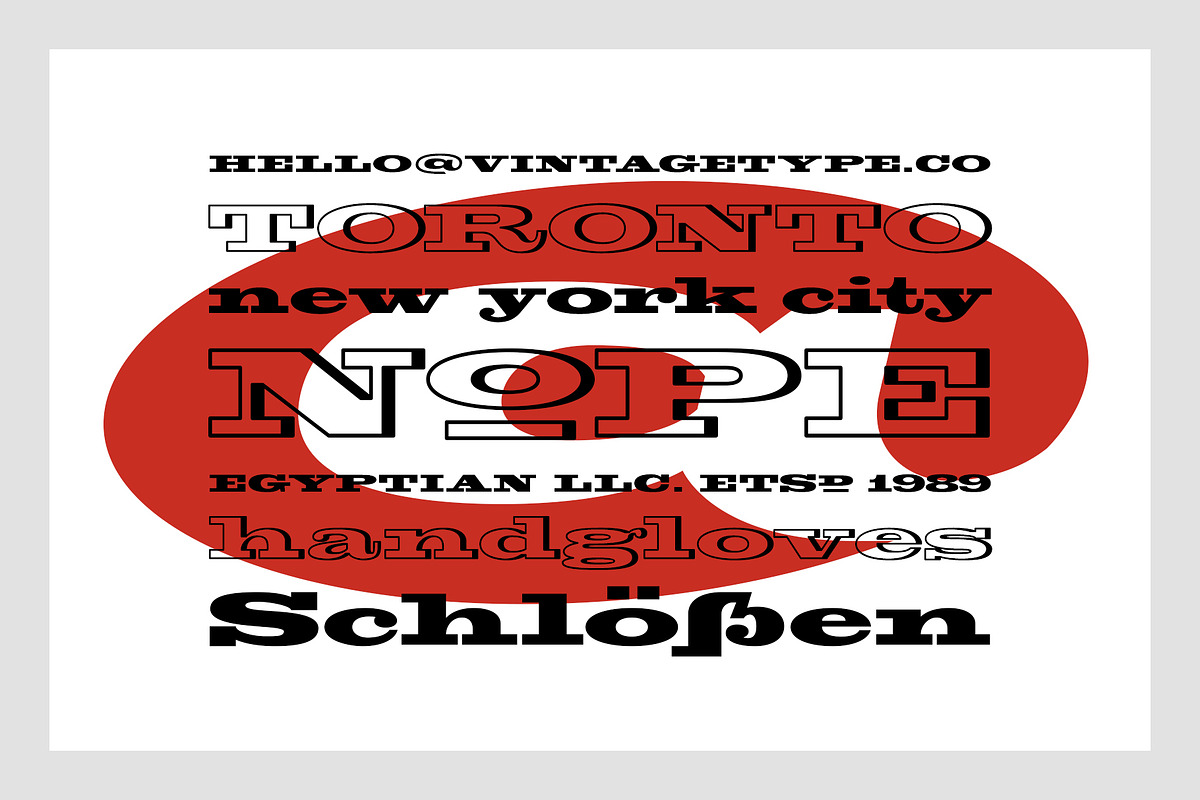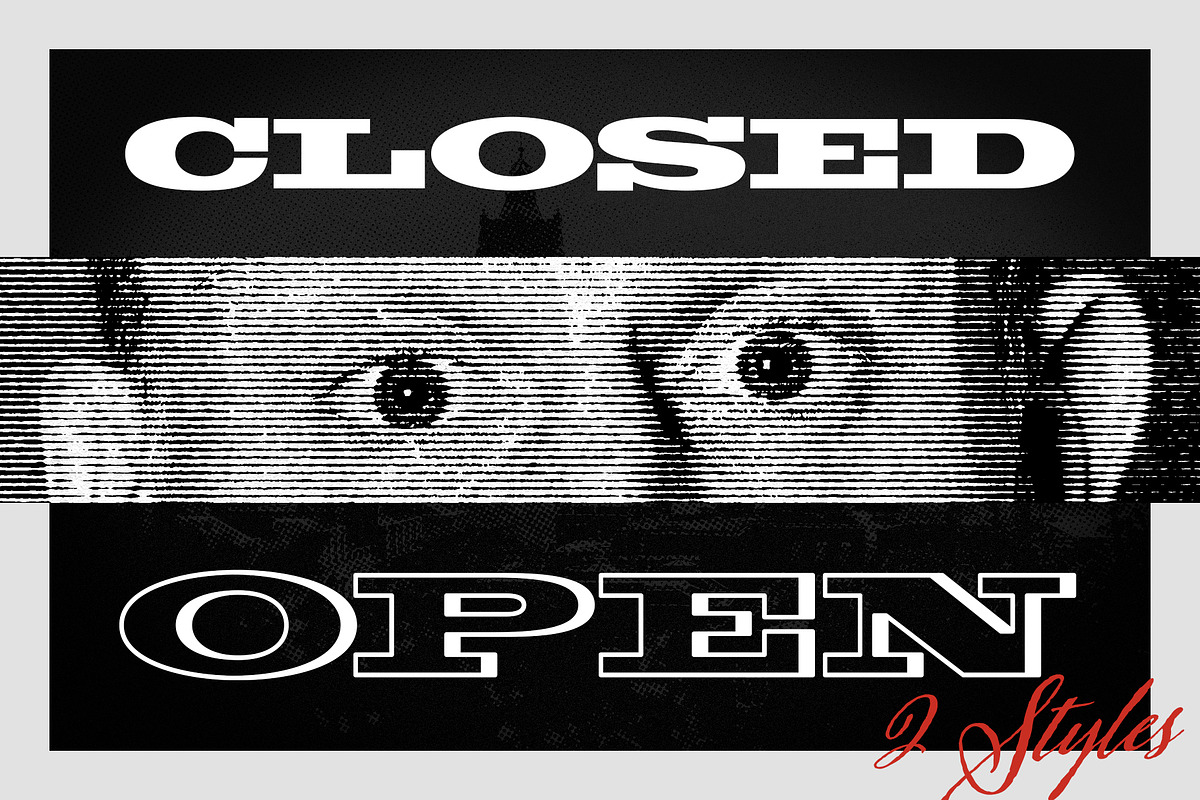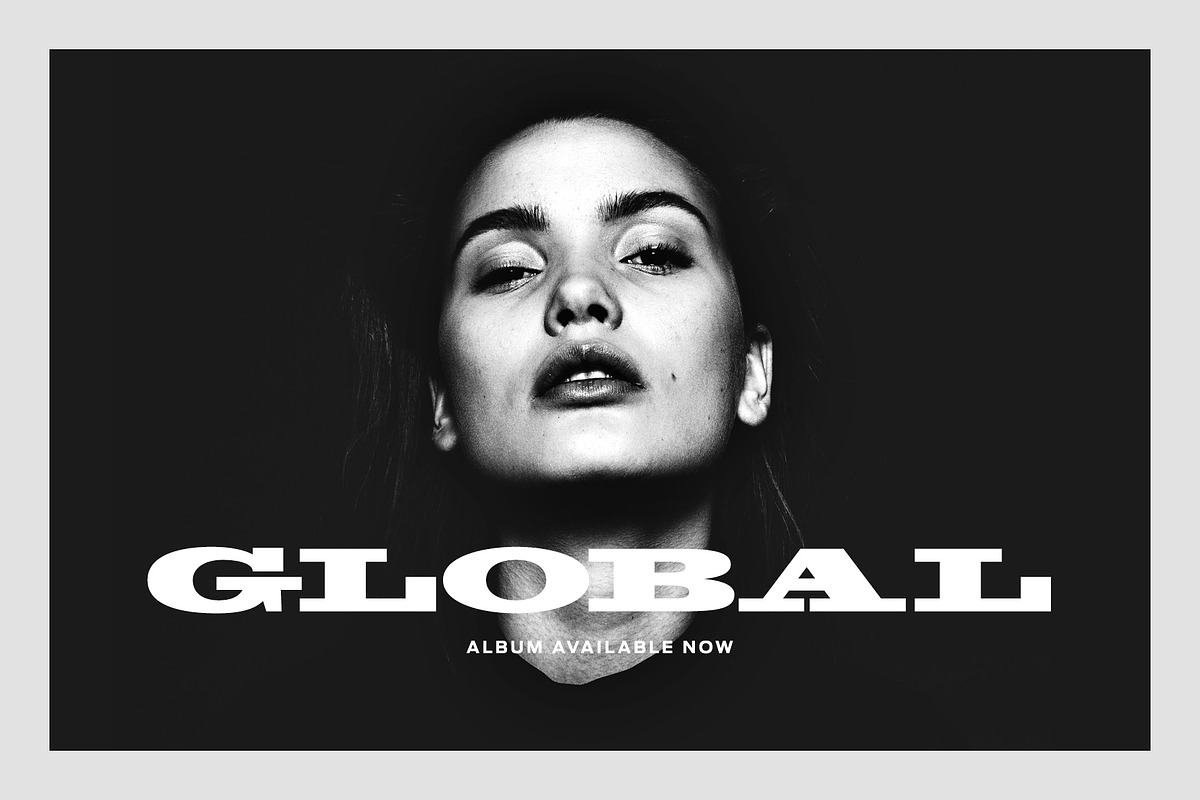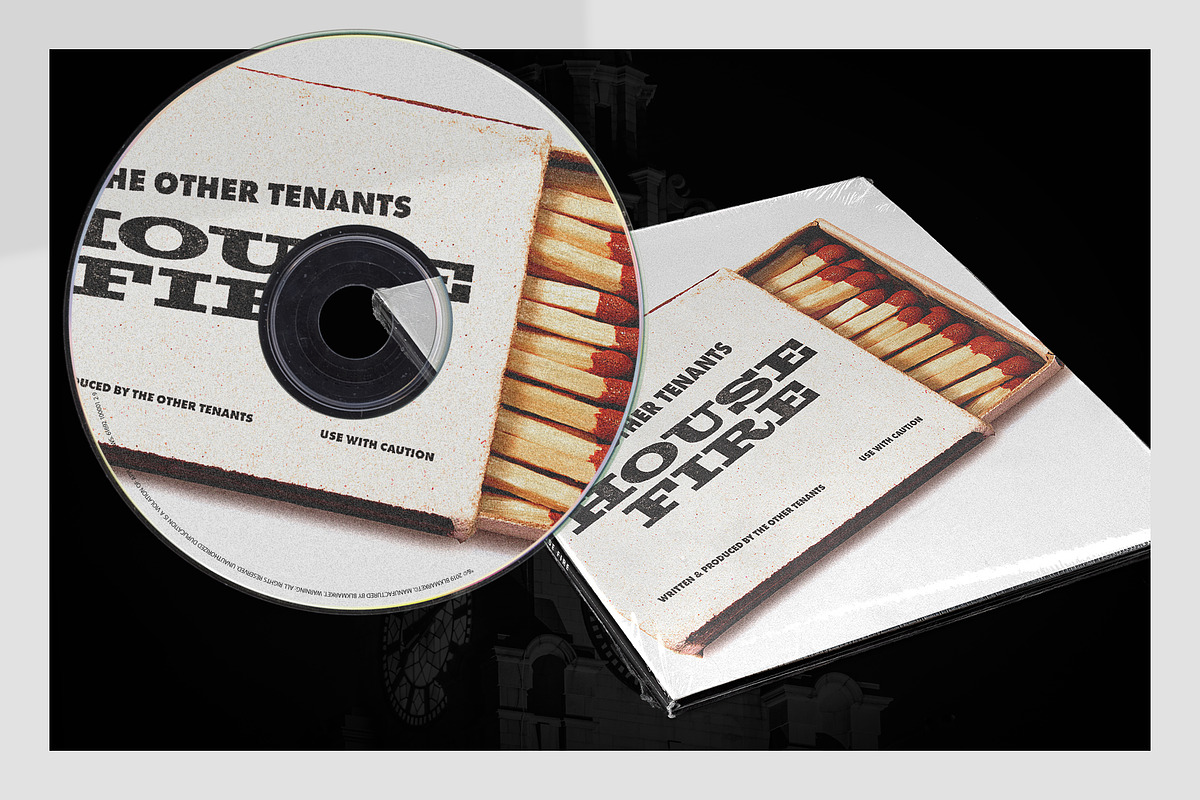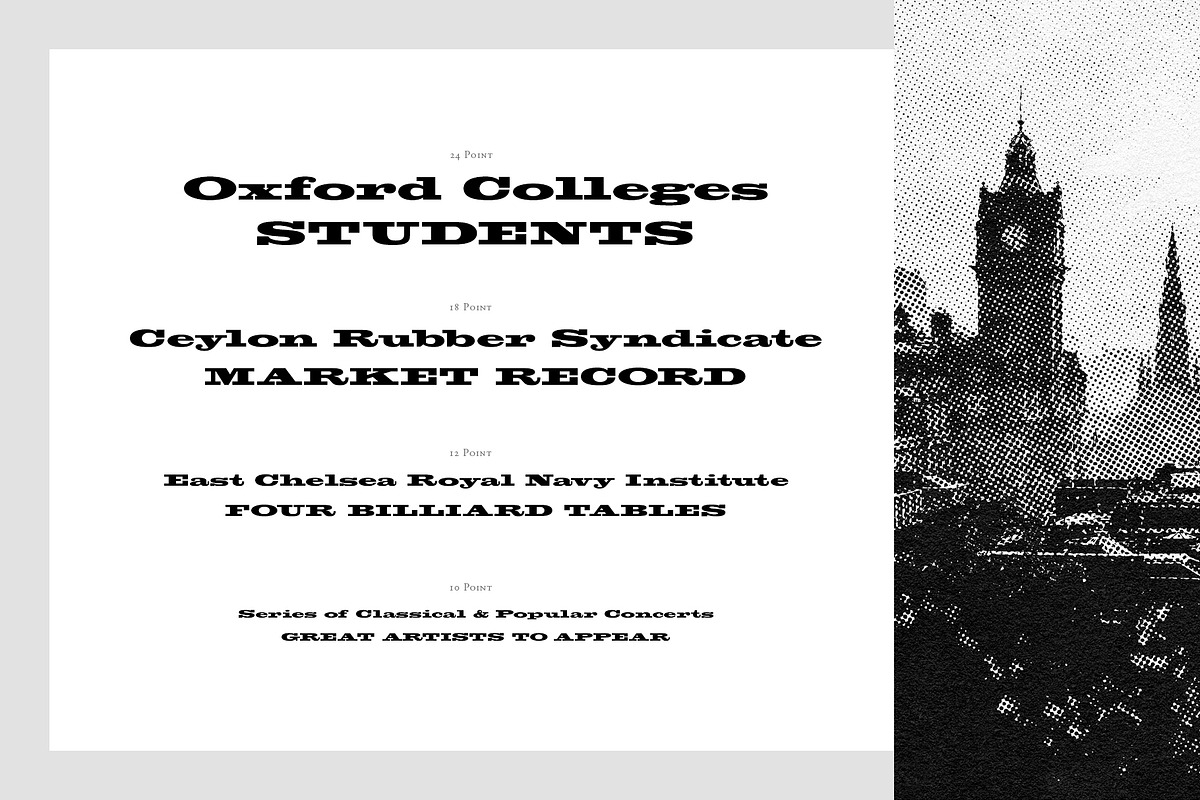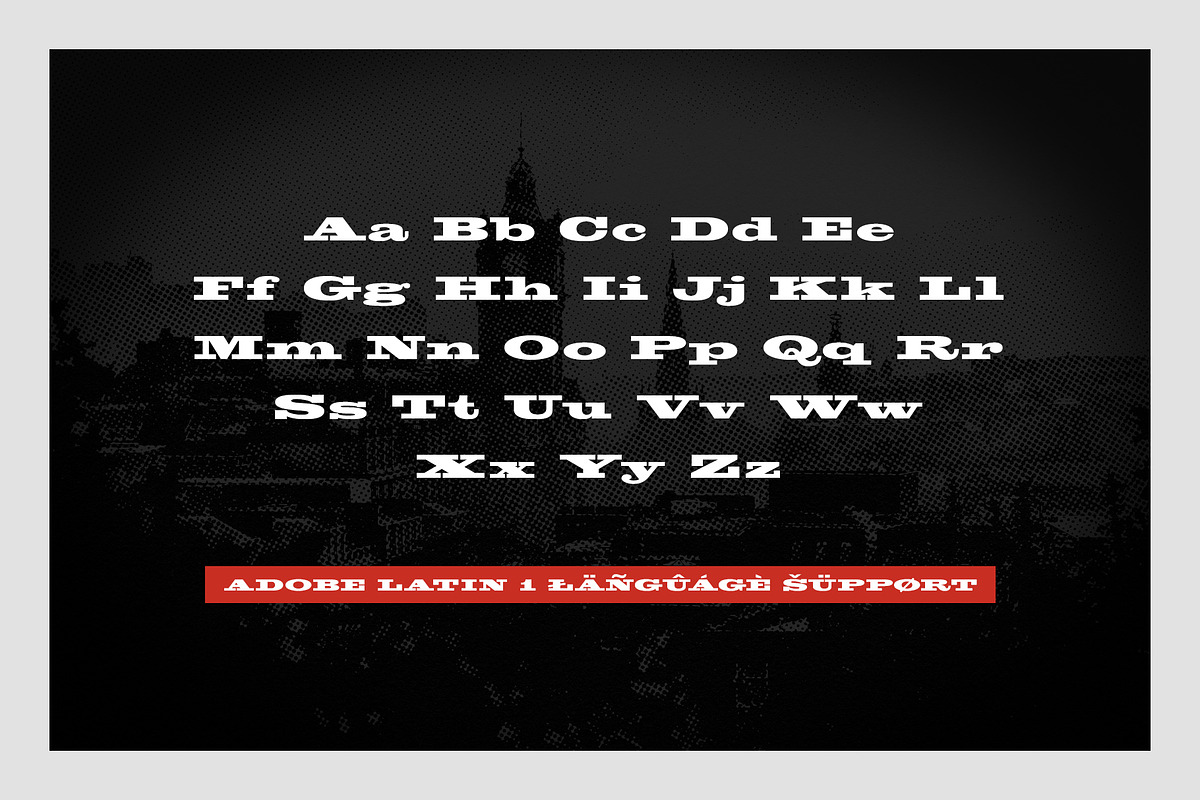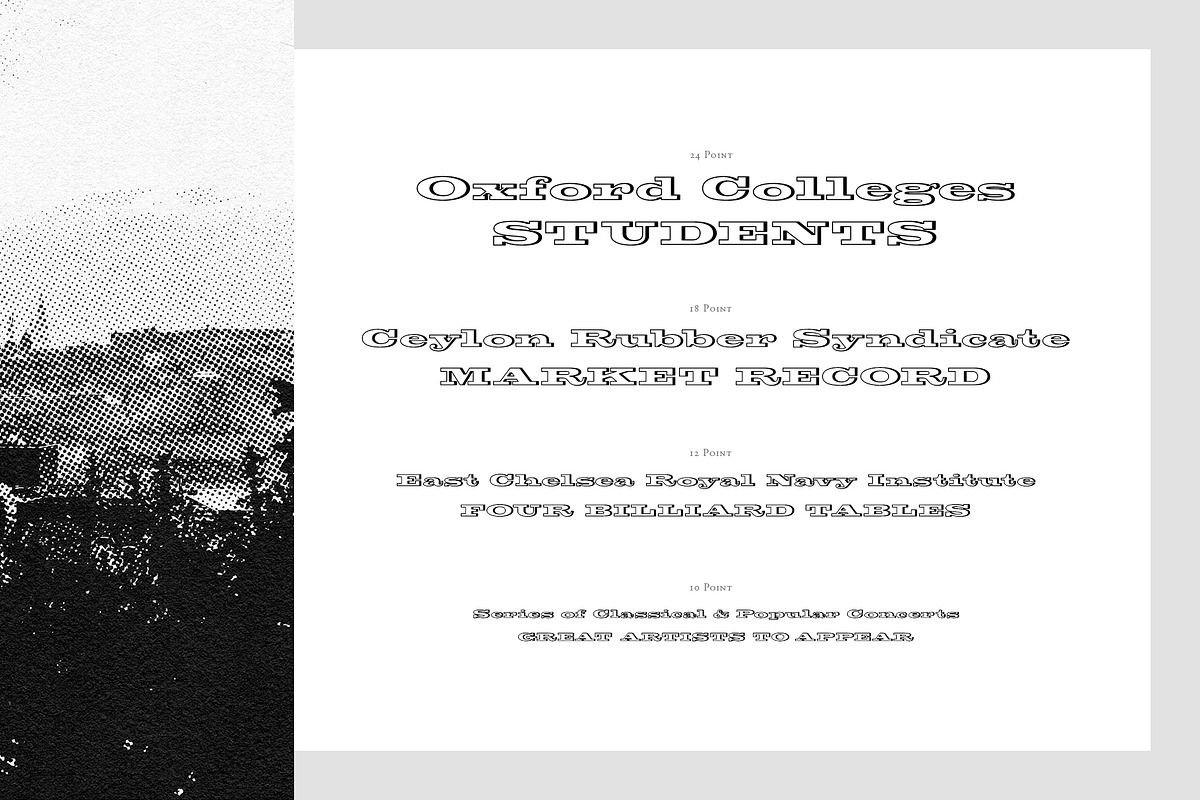
Bloke Display Font
VTC Bloke is a revival of Miller & Richard’s classic metal typeface, ‘Egyptian Expanded’, including the three-dimensional, ‘Open’ style that was later introduced to the family.
The roots of this typeface stem from the UK, where William Miller and his son-in-law Richard had their initial foundry in Edinburgh, Scotland. In addition to the beautiful and timeless type designs, the foundry gained a reputation for offering super small type sizes, designed for Bibles, dictionaries, documents, etc.
Slab Serifs (or Egyptian Serifs) started to gain popularity in the early 19th century. It’s around this time, due to emerging industrial technologies, and an ever-expanding advertising industry, that type designers started to really experiment with letterforms that could help their clients distinguish themselves from the competitor, and catch people's eyes.
The size of posters and advertising space was getting bigger, and so was the type.
All original letterforms have been re-drawn and cleaned up, with some more modern glyphs and characters added in. VTC Bloke supports Adobe Latin 1 Language Support.
- All original letterforms have been re-drawn and cleaned up, with some more modern glyphs and characters added in.